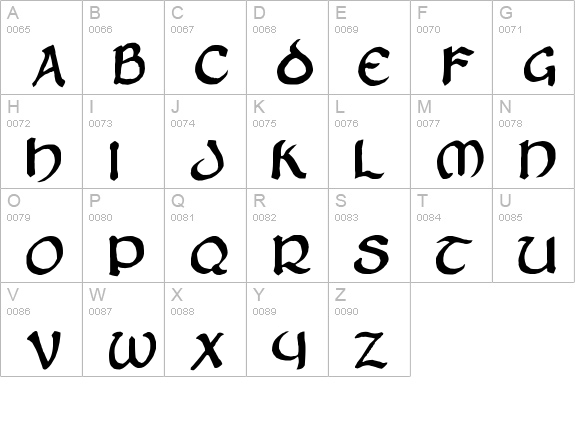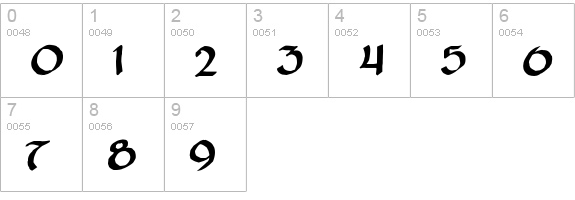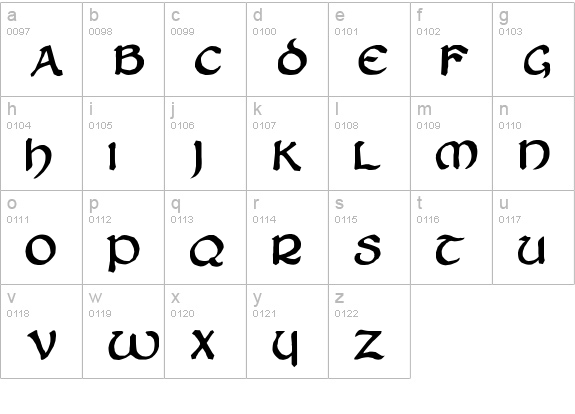
Zilluncial Font Details
Zilluncial font is a beautiful and unique typeface that combines elements of traditional calligraphy with a modern twist. Its elegant curves and intricate details make it perfect for adding a touch of sophistication to any design project. The flowing strokes of Zilluncial font give it a sense of grace and fluidity, making it ideal for use in branding, invitations, and more. What sets Zilluncial font apart is its versatility - it can be used for both formal and casual designs, making it a valuable addition to any designer's toolbox. Whether you're creating wedding invitations, business cards, or social media graphics, Zilluncial font will add a touch of elegance to your work. Best of all, Zilluncial font is available for free download at FontsMarket.com. This means you can start using this stunning typeface in your projects right away, without having to worry about breaking the bank. Don't miss out on the opportunity to add Zilluncial font to your collection and take your designs to the next level. Download it today and let your creativity soar with this exquisite font!